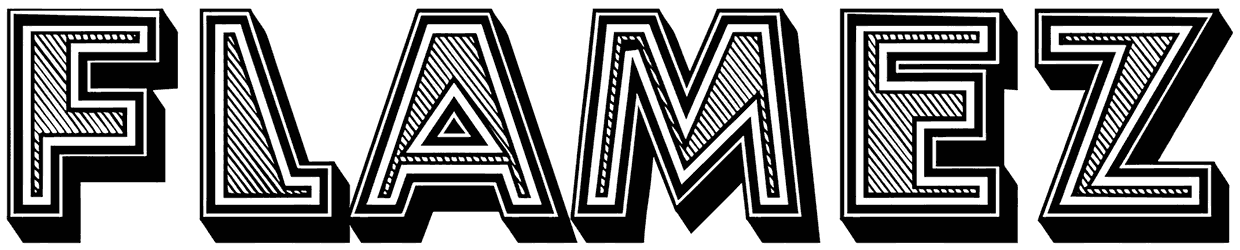
Flamez Font
At first sight, you may find out that Flamez font looks utterly incongruous, but whether this incongruous design has been intentional or not? After a slight hesitation, you see it is in its nature.  This retro font comes in handy for urbane decoration, shop logos, signs, and writing a social media bio. Lowercase letters have not been demonstrated yet.